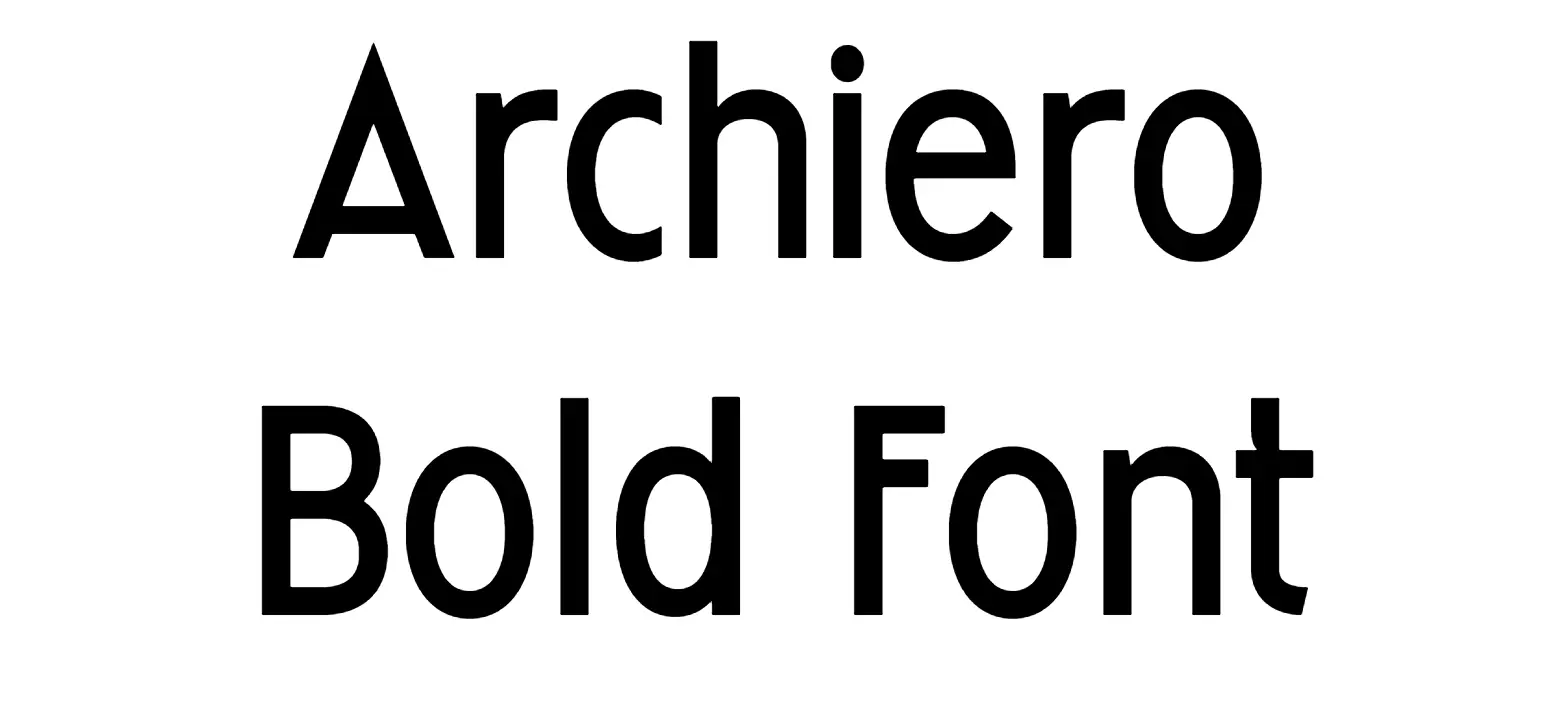
Archiero Bold
Archiero Bold is a sans serif font made by Glyphminds Studios (2025). Simple, open letter shapes keep it easy to read at almost any size, from app buttons to big headlines. It's a free download, and you can try it with your own text in the preview above first.
What You Can Type With Archiero Bold
With complete upper and lowercase letters and all ten digits, Archiero Bold is ready for real wording, not just a single headline. Common punctuation such as &, !, ? and @ is included as well. It doesn't include accented letters such as é or ñ, which makes it an English-only font.
Where Archiero Bold Works Best
Archiero Bold is a natural fit for websites, app screens and clean logos. Its lowercase letters are tall compared to the capitals, which keeps it readable at smaller sizes. It works for headings and body text alike. If the download has several weights, use a heavier one for titles and a lighter one for paragraphs.
Does Archiero Bold support accented letters?
No. Archiero Bold has no accented letters such as é, ñ or ü, so it's best for English text.